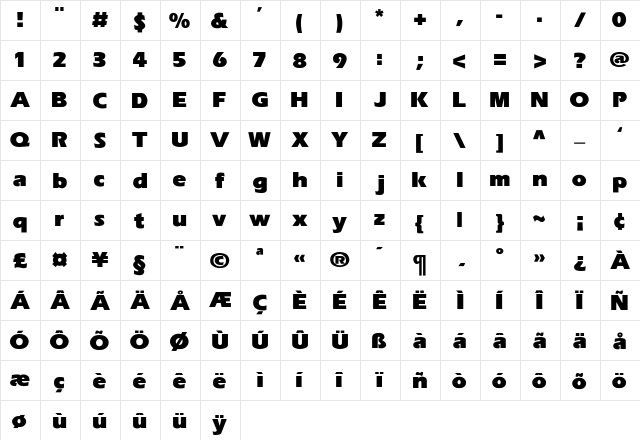
SemolinaUltraBlk Bold Regular
Design Context for SemolinaUltraBlk Bold Typeface
SemolinaUltraBlk Bold takes a measured approach to typography — its balanced proportions and neutral character make it a reliable workhorse for both digital and print work. The heavy weight commands attention and anchors typographic hierarchies.